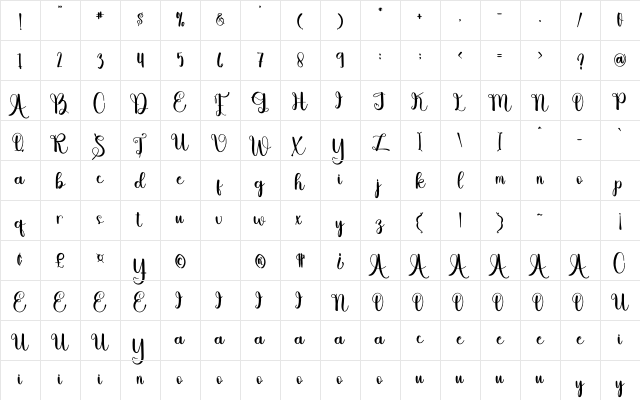
Autography Regular
Autography Family
Design Context for Autography
Autography is a composed and adaptable typeface that performs quietly and consistently across a wide range of design contexts.